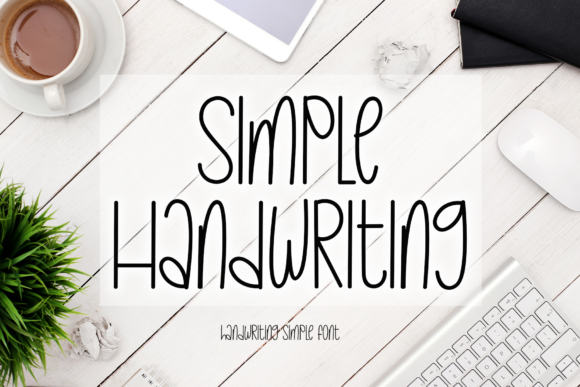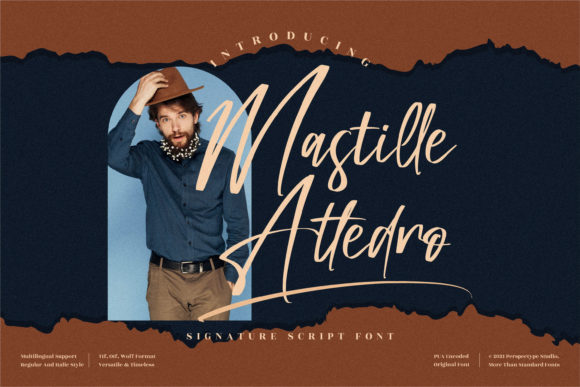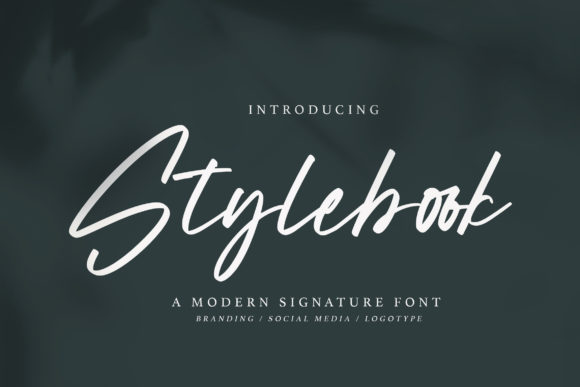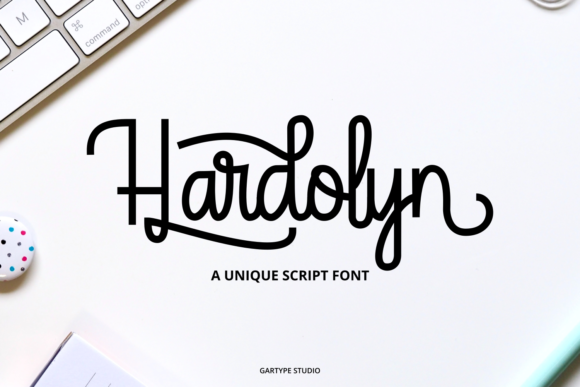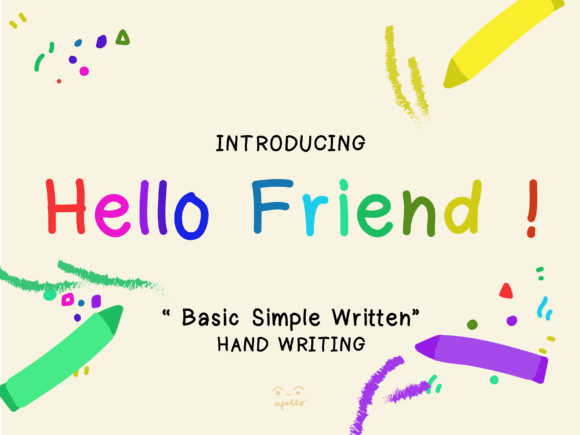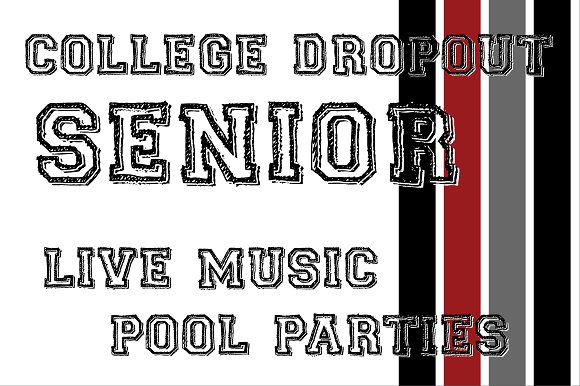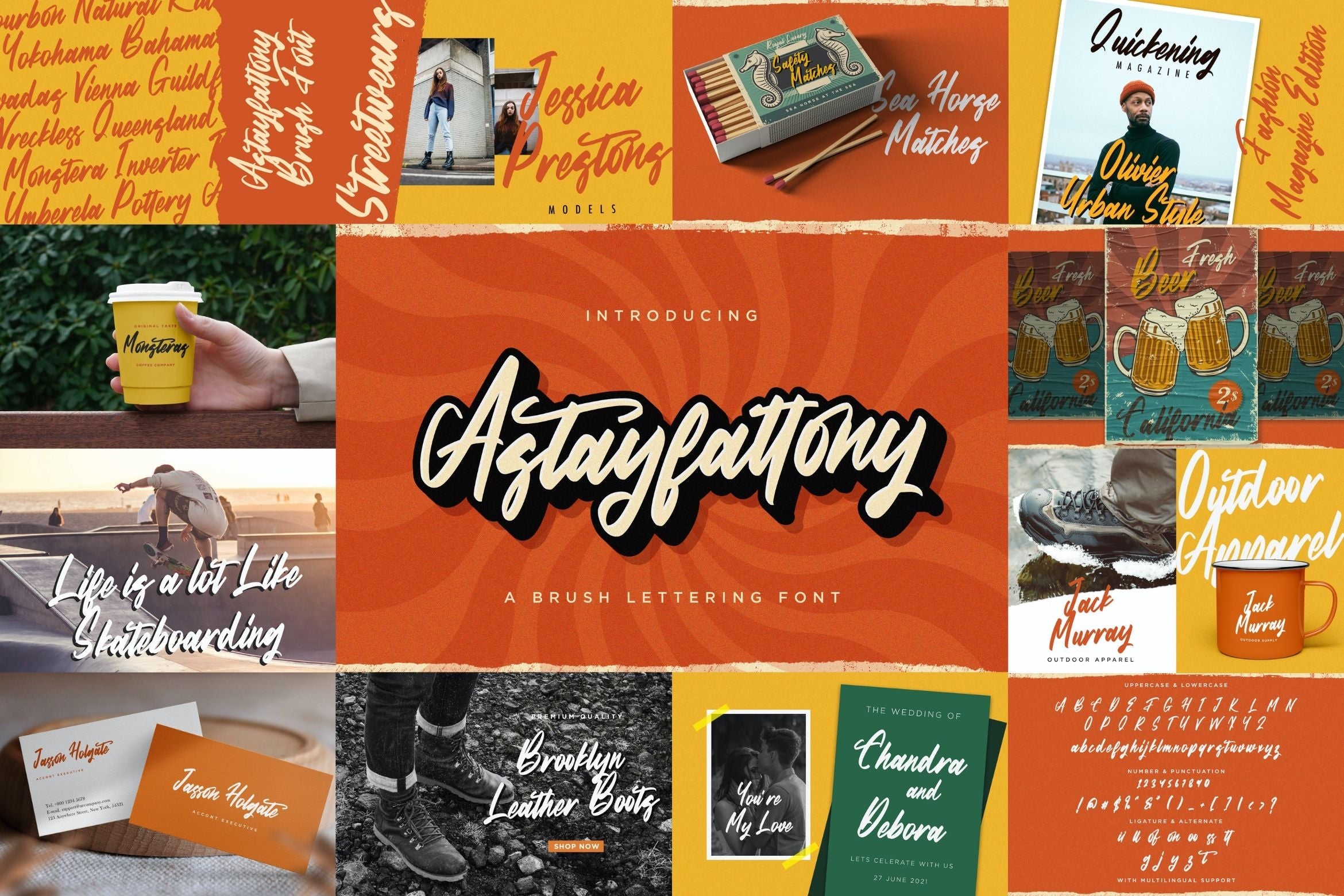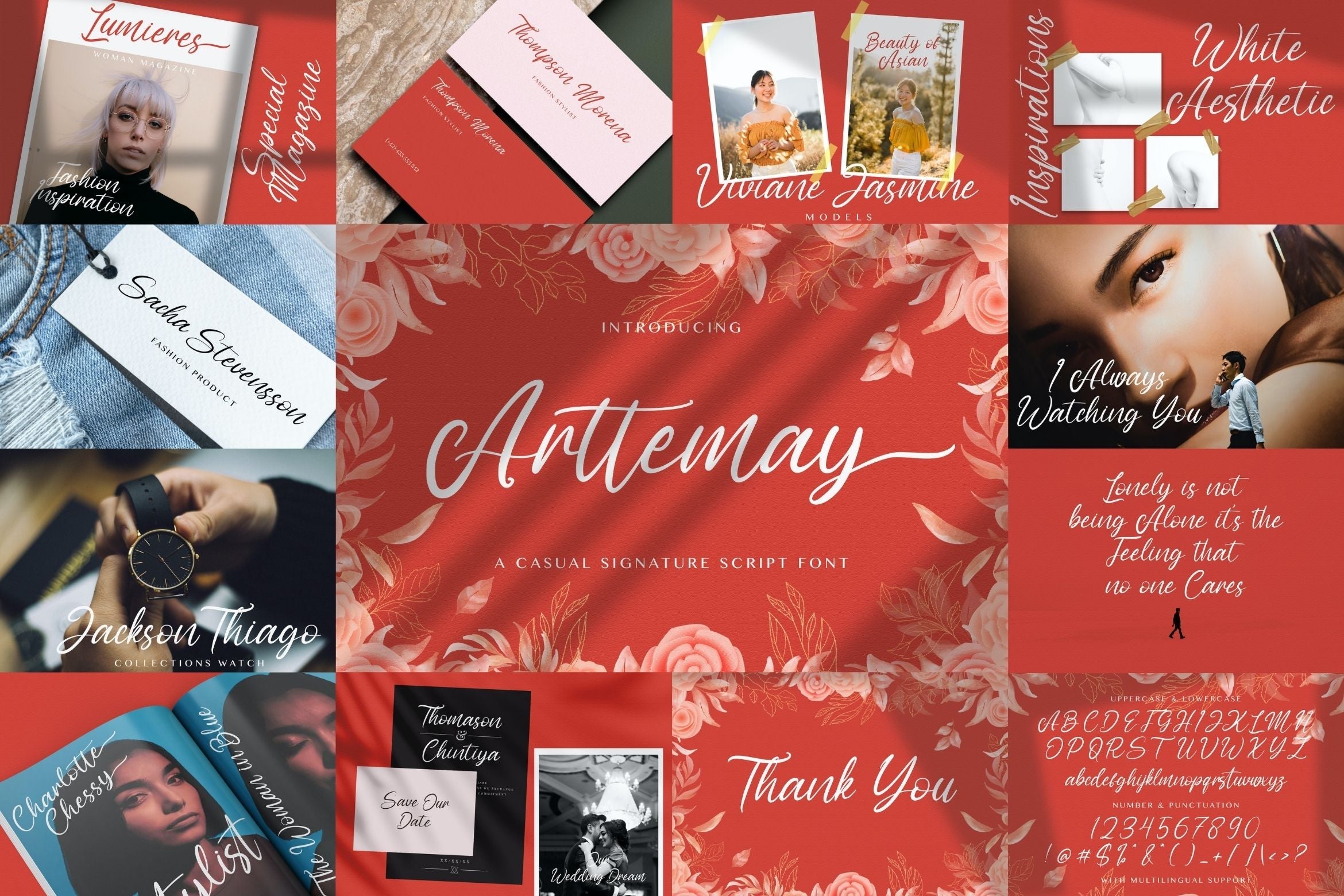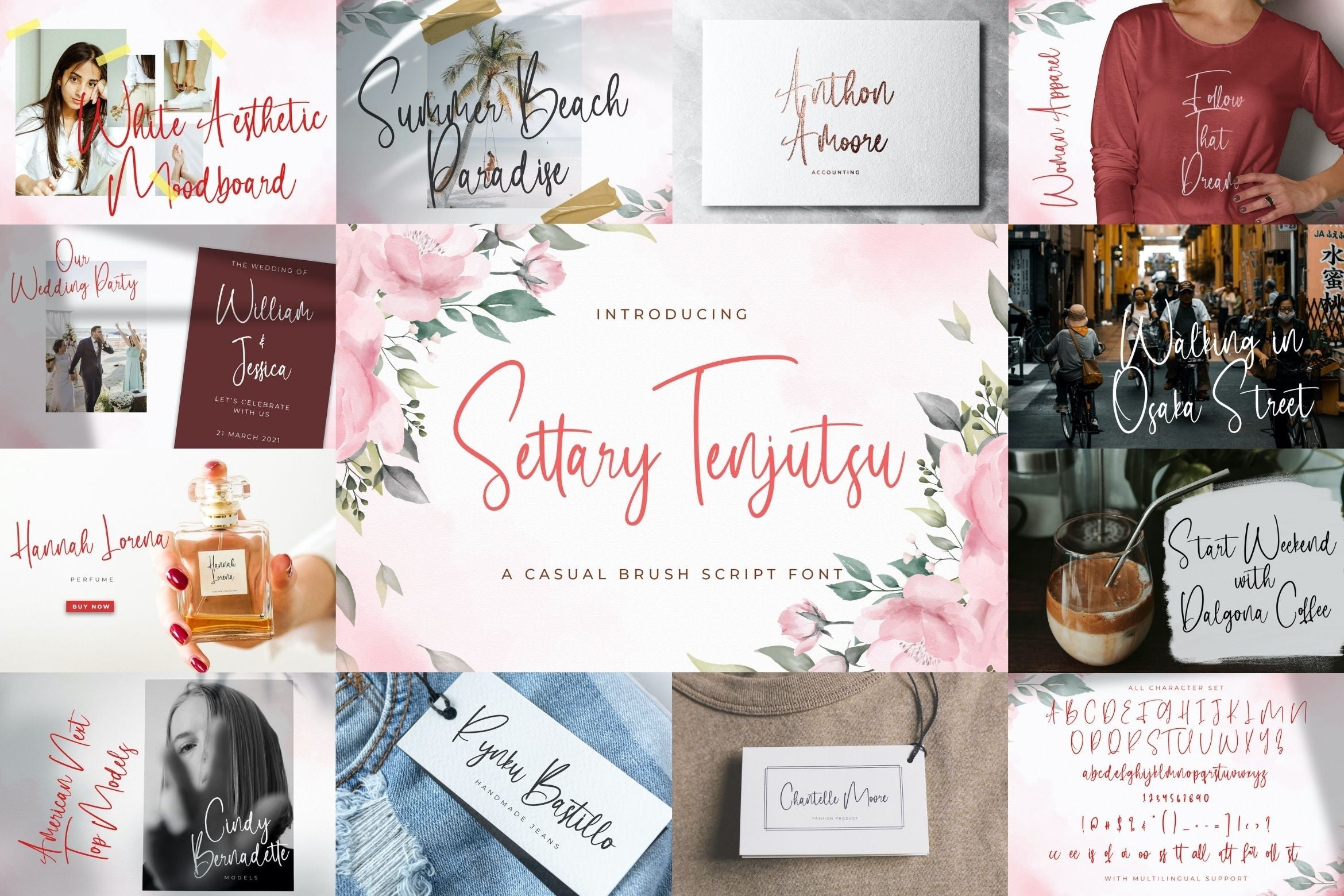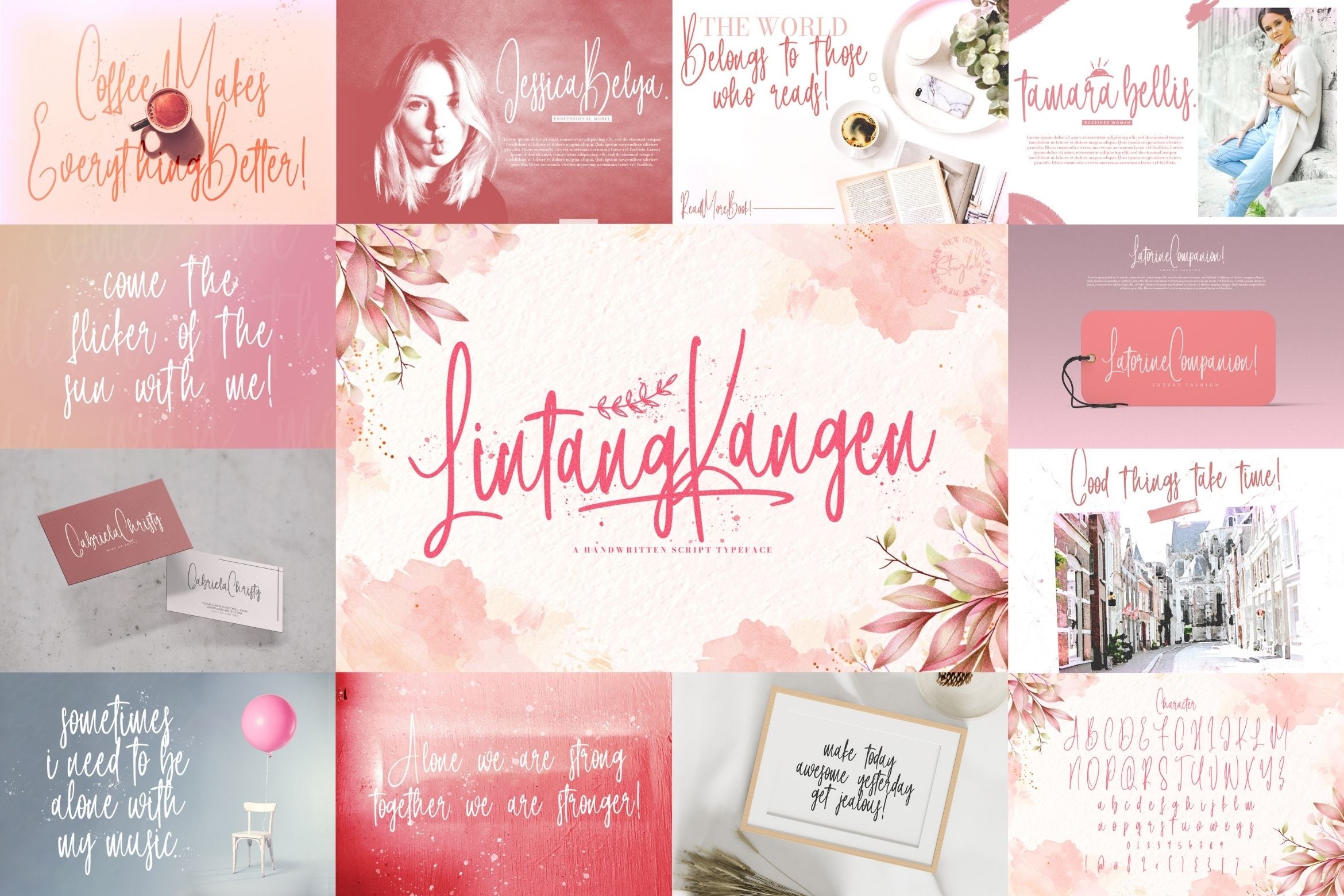
About Handwritten Font Bundle Vol 6
Handwritten Font Bundle Vol 6 is a delicate, elegant and flowing handwritten font. This font bundle contains 8 high quality handwritting script font, it will look simply magical in a wide range of design projects, and also that will look particularly adept when used in logos, branding, packaging design, and much more. It has beautiful and well balanced characters and as a result, it matches a wide pool of designs. Add it to your most creative ideas and notice how it makes them come alive! FONTS INCLUDED : 1. Lintang Kangen 2. Stringlabs Script 3. Aliya Ramsey 4. Settary Tenjutsu 5. Arttemay 6. Hontizema 7. Astayfattony 8. Sabeny Betranss Fonts available in format : OTF, TTF, WOFF, WOFF2